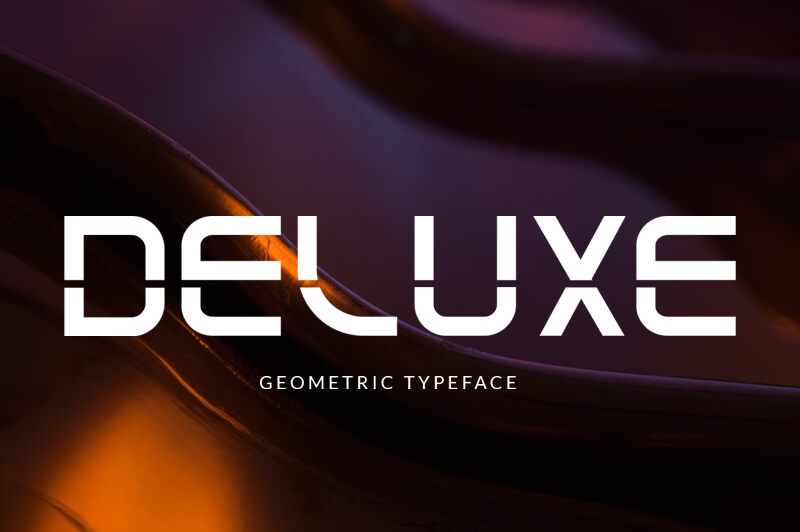
Deluxe Regular
Deluxe, a captivating display font crafted by Vultype, exudes a bold, technological allure. Its sharp, geometric letterforms and striking contrast create a dynamic, futuristic aesthetic that immediately commands attention. The font's clean lines and angular details evoke a sense of modernity and innovation, making it an ideal choice for a wide range of design projects.
The versatility of Deluxe shines through its ability to seamlessly integrate into various design contexts. Its strong, distinctive personality lends itself well to branding, marketing materials, and product packaging, where it can make a bold, memorable impression. Additionally, the font's visual impact makes it a compelling selection for use in digital interfaces, event promotions, and editorial layouts, where it can help to convey a sense of technological sophistication and cutting-edge style.